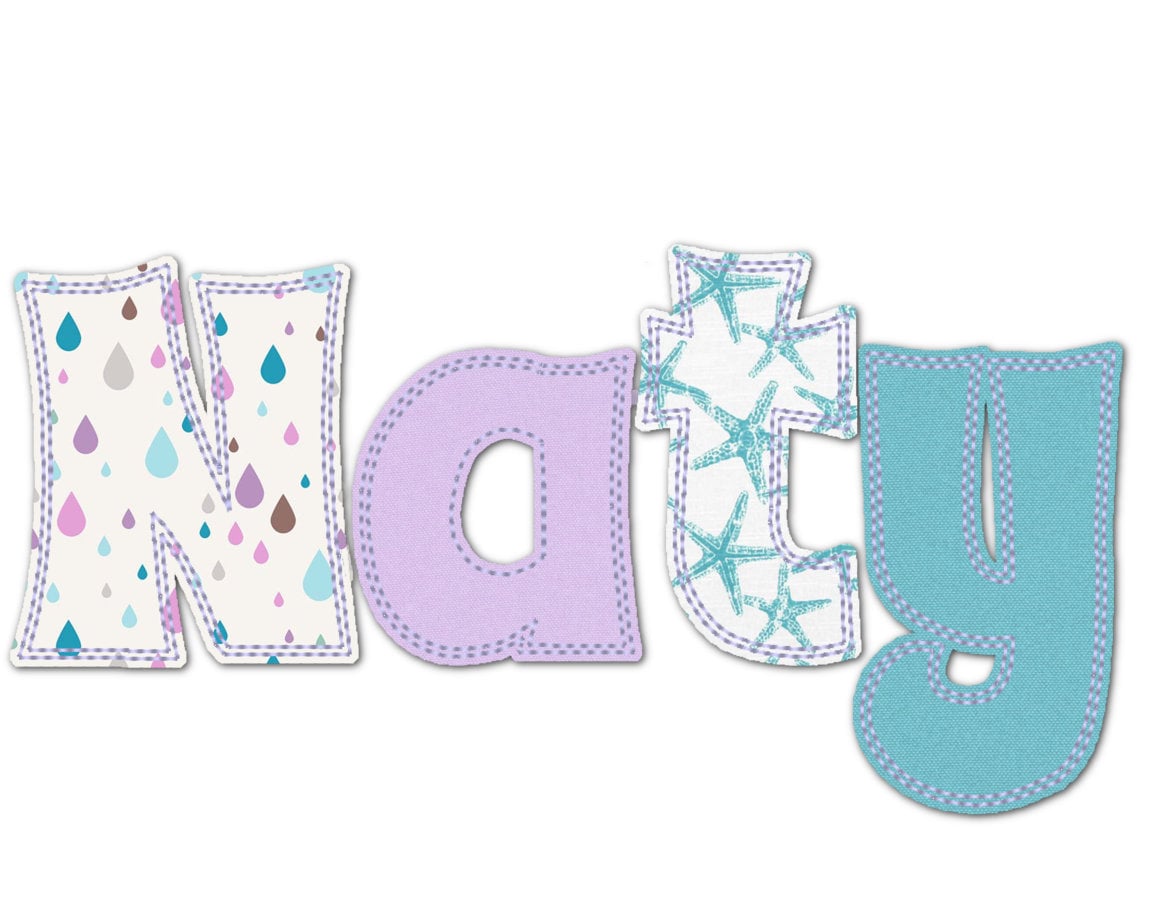
Or click to open the linkA raggedy edge applique font: stitch, then trim the fabric for a soft, frayed look. Cozy for names and initials on quilts, pillows and kids' clothes.
Uppercase and lowercase letters, numbers 0 to 9 and punctuation in five sizes: 1.5, 2, 2.4, 3.1 and 4.4 inches. The loose fabric edges fray a little in the wash for a homemade look.